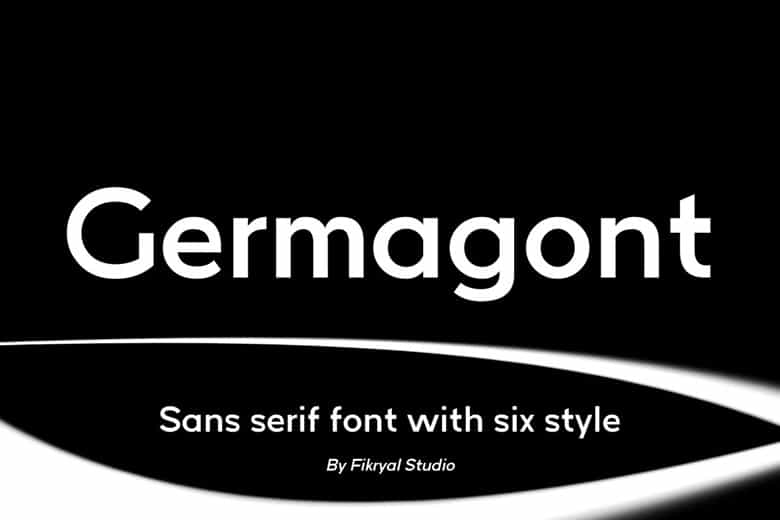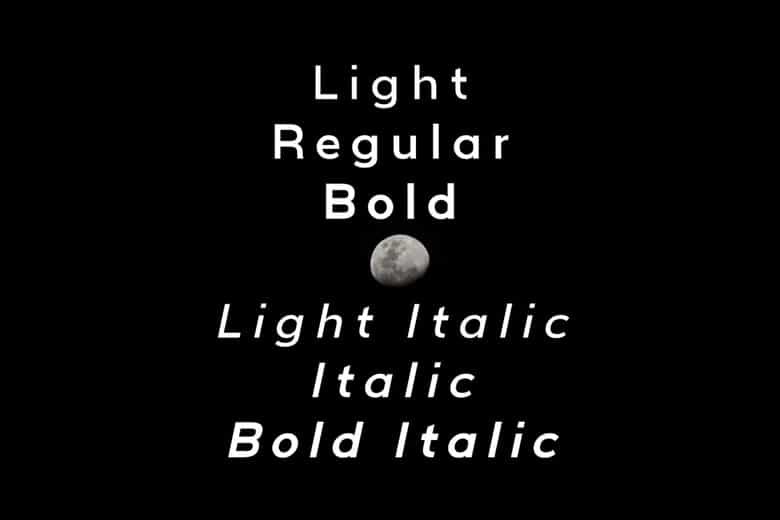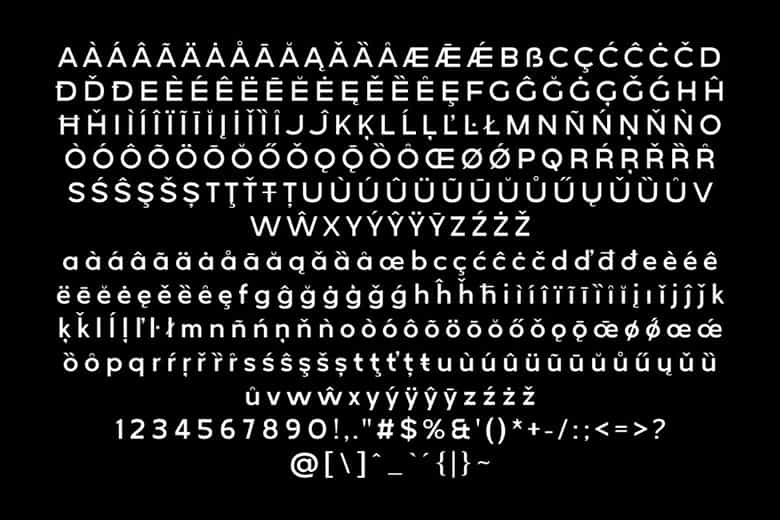
Germagont is a new modern sans serif font family with style, clarity, and versatility. Germagont comes with six different styles – Light, Light Italic, Regular, Italic, Bold, Bold Italic and fits perfectly to use in bolder branding, as well as in a sleek editorial layouts.